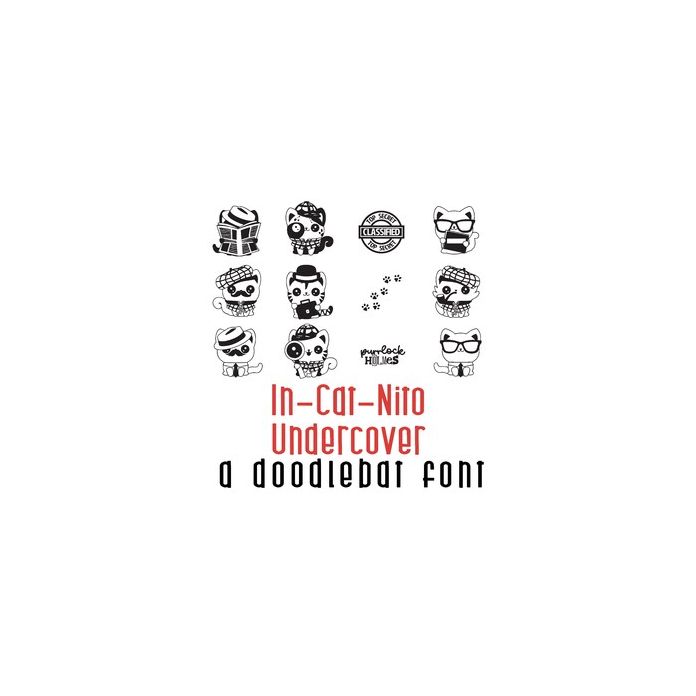
This adorable doodlebat font features 26 cats undercover spys. Perfect for cards, crafts, gifts, decor, parties, planner stickers, scrapbook pages and more!